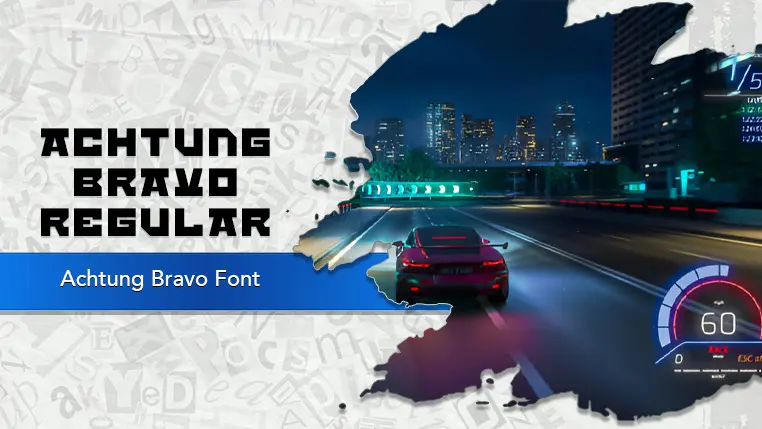
The Achtung Bravo font family may be ideal for you if you enjoy working on an artistic design project. The lively, expressive look of this typeface, which was created by GGBotNet, makes it ideal for Achtung Bravo Font will be used as Headlines and Titles, its primary use would be for making powerful statements in headlines, article titles, posters, and banners, especially where a strong visual hierarchy is desired. You can use this for Logos and Branding for brands that want to project a modern, bold, industrial, or slightly rebellious image. Think tech companies, streetwear brands, gaming studios, or music labels. Its geometric and impactful nature makes it very suitable for game titles, UI elements, and promotional materials for video games, particularly those with a sci-fi, action, or dystopian theme. Its strong, dynamic feel can work well for sports teams, athletic wear, or automotive advertising. For products that want to stand out with a modern, bold, or industrial aesthetic. and other light-hearted visual projects.
Regular are the one primary font styles of the Achtung Bravo font family. You may build dynamic, visually appealing text layouts with the distinct flair that each style offers. With crisp, readable lines and a relaxed tone.